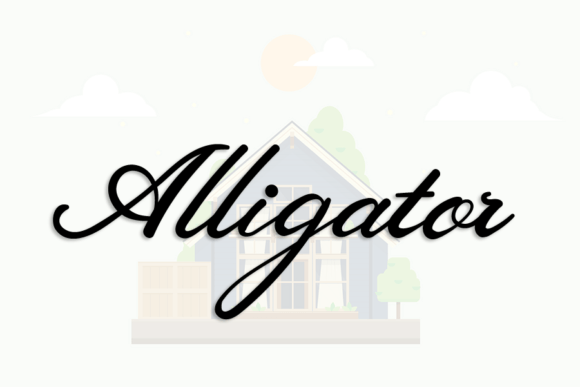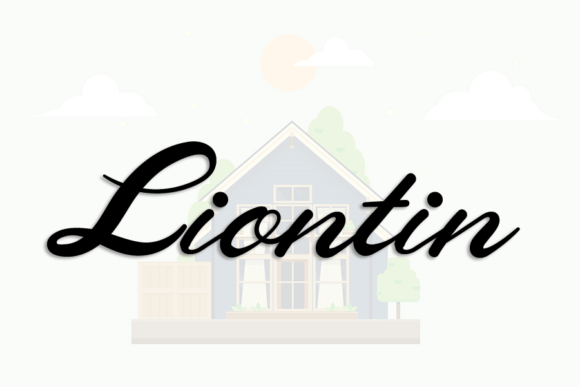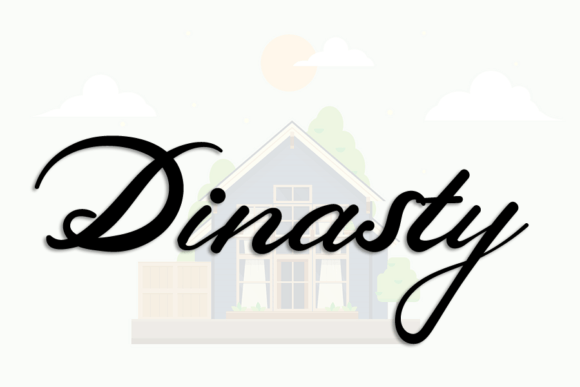
Broken Home Font
About Broken Home Font
Broken Home is a beautiful and refined script font that exudes a classy, elegant, and modern aesthetic. This font is versatile and well-suited for a range of design applications, making it an excellent choice for logos, invitations, stationery, wedding designs, and social media posts. Its sophisticated look also makes it perfect for product packaging, branding projects, magazine covers, and various other design contexts where an elegant and modern touch is desired.
The classy and elegant design of Broken Home makes it particularly suitable for projects that require a touch of sophistication. Whether used in wedding invitations or social media posts, this font elevates the visual appeal, adding a refined quality to your designs.
In logo design, Broken Home brings a sense of modern elegance. Its script style creates a distinctive and memorable brand identity, making it well-suited for businesses or projects that seek to convey a refined and upscale image.
For stationery and wedding designs, Broken Home’s refined script complements the overall aesthetic of these materials, adding a touch of elegance that enhances the celebratory atmosphere.
In the realm of social media, Broken Home contributes to creating visually appealing posts. Whether used for quotes, announcements, or promotional content, the font’s modern and elegant look captures attention and communicates a sense of style.
For product packaging and branding projects, Broken Home becomes a valuable asset. Its combination of beauty and refinement ensures that your products or brand are presented with a sophisticated and modern flair, leaving a lasting impression on consumers.
Magazine covers benefit from Broken Home’s elegant script, adding a touch of sophistication to the publication’s overall design. The font’s versatility allows it to adapt seamlessly to various design elements, ensuring a cohesive and visually pleasing magazine layout.
In summary, Broken Home is not just a font; it’s a beautiful and refined script that enhances the elegance of your text across a range of projects. Its modern look makes it well-suited for contemporary design contexts, while its timeless elegance ensures that it remains a stylish choice for diverse applications.